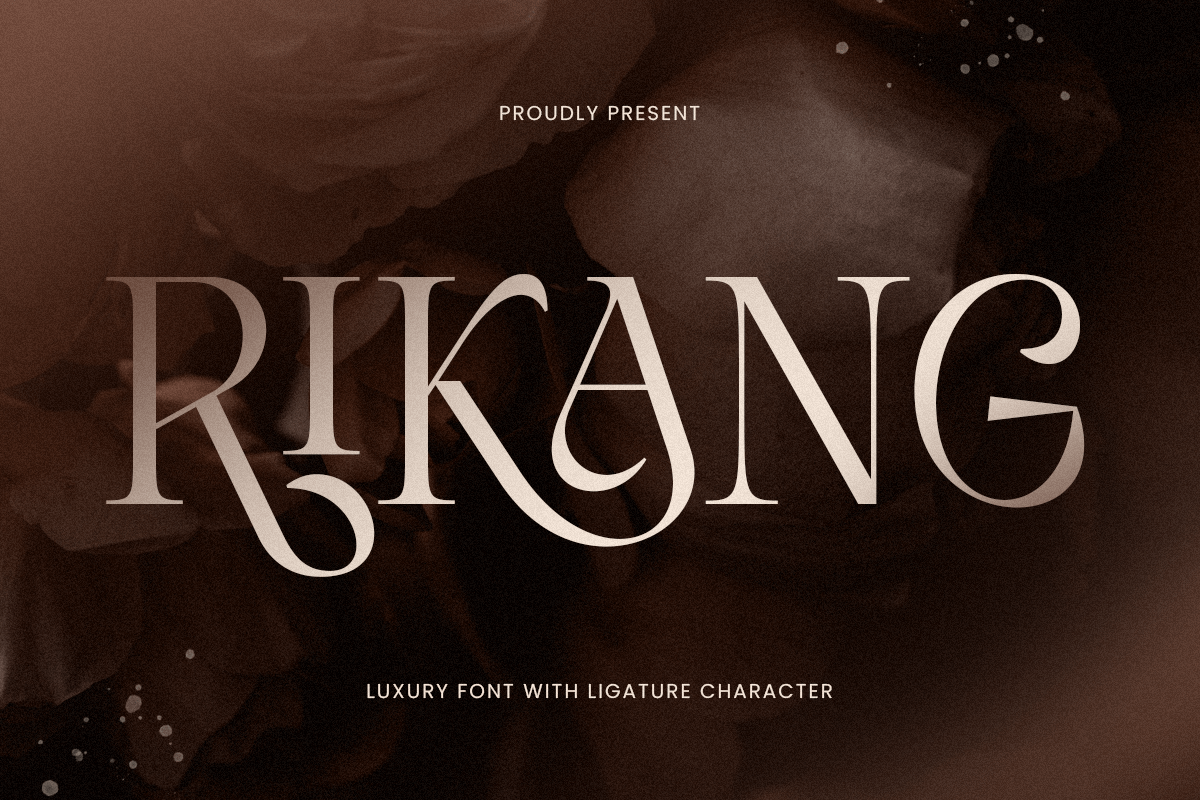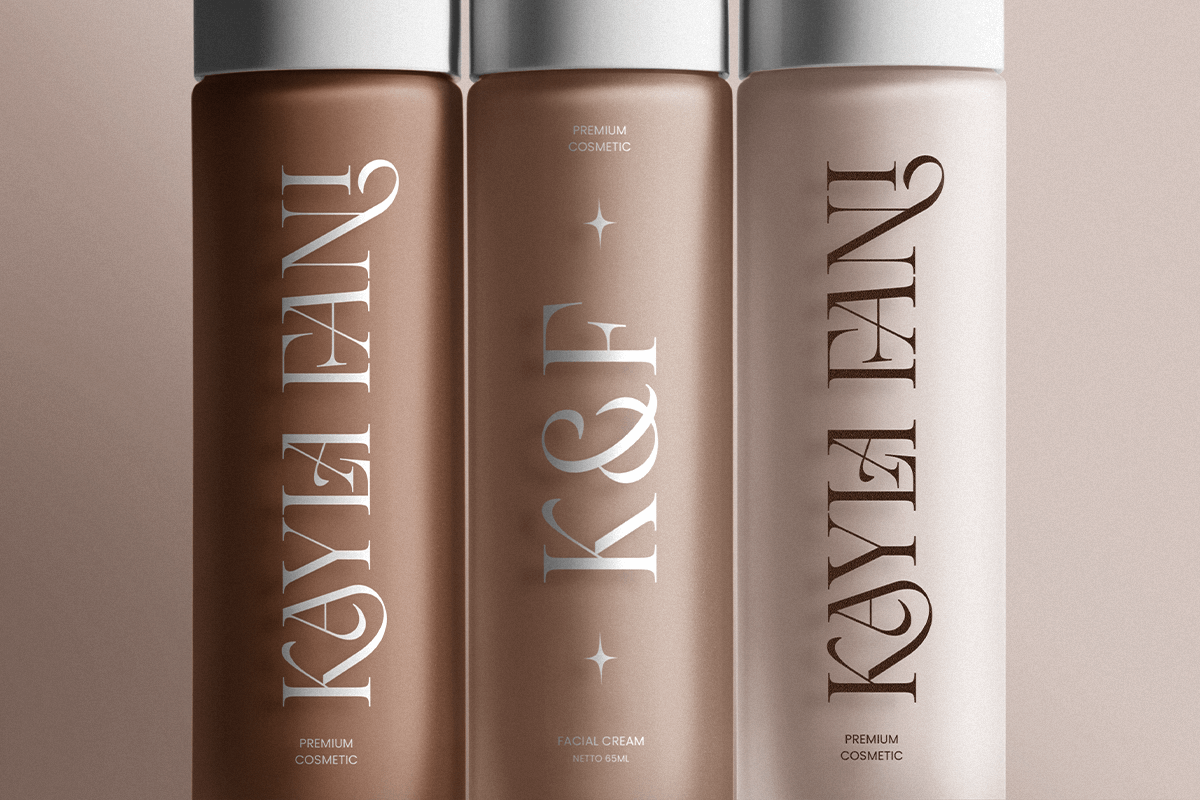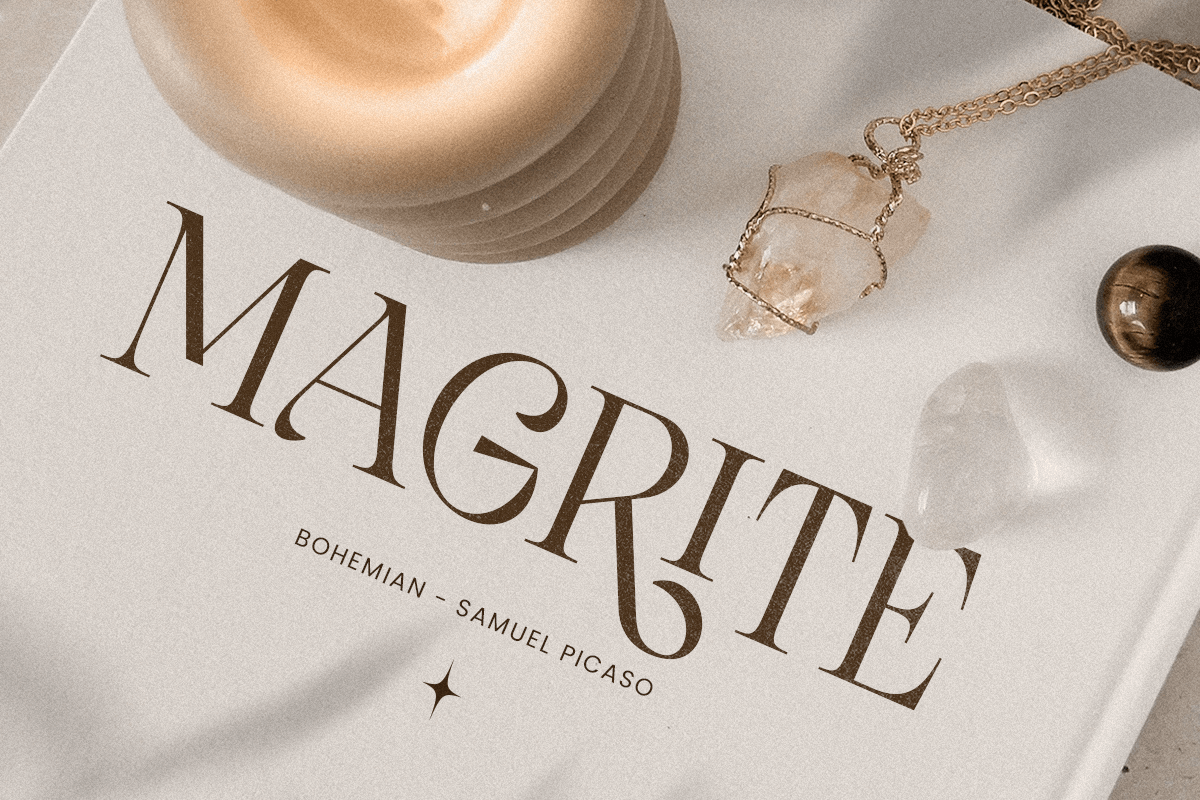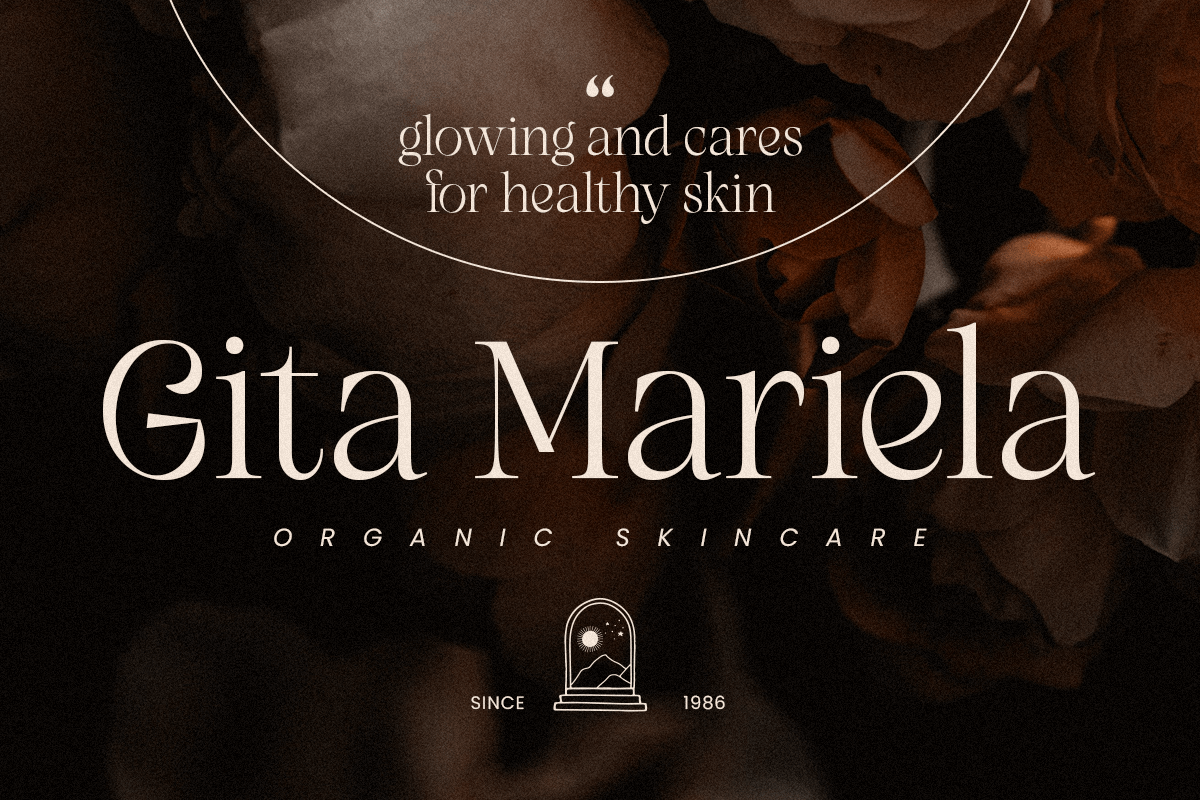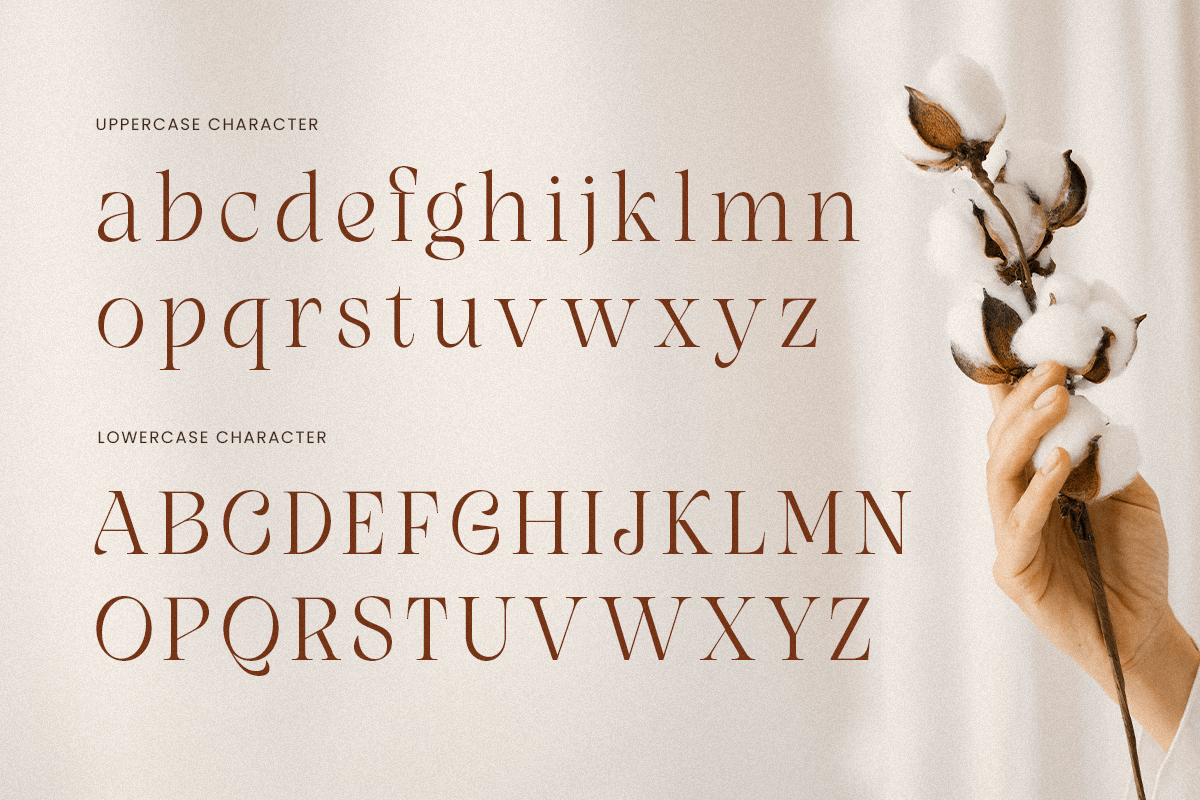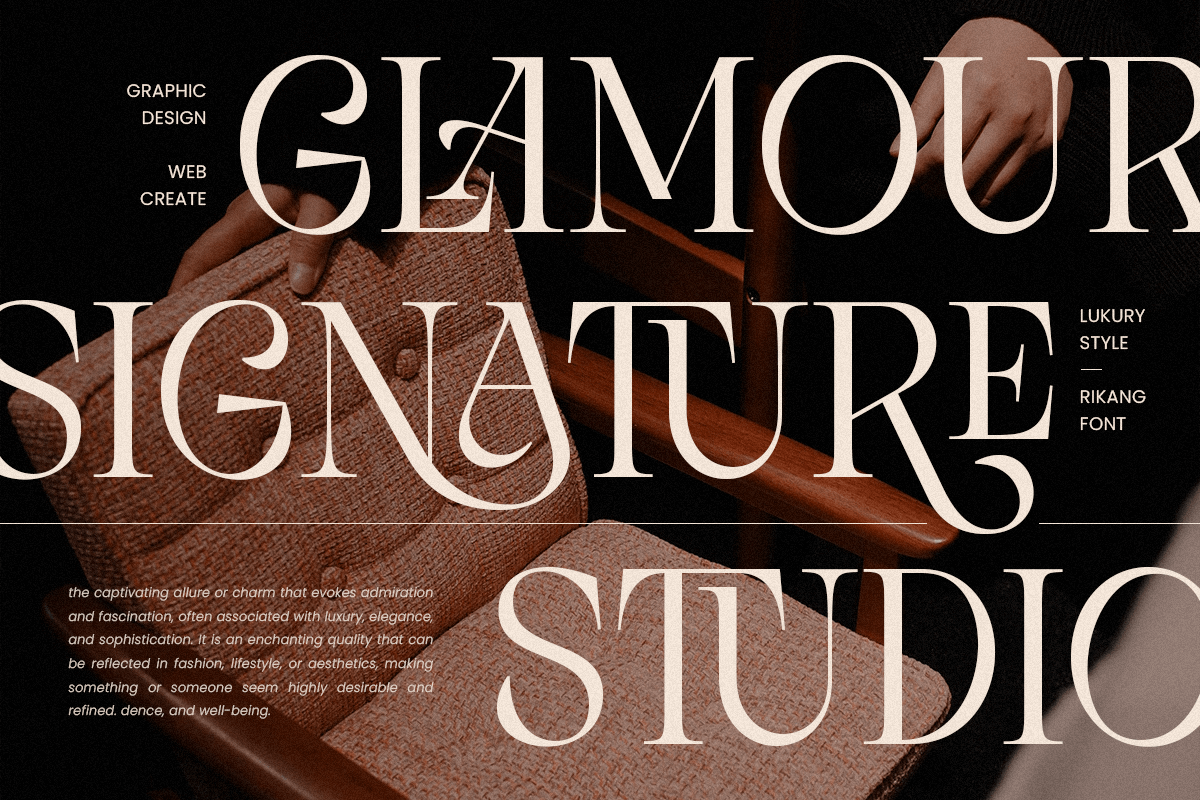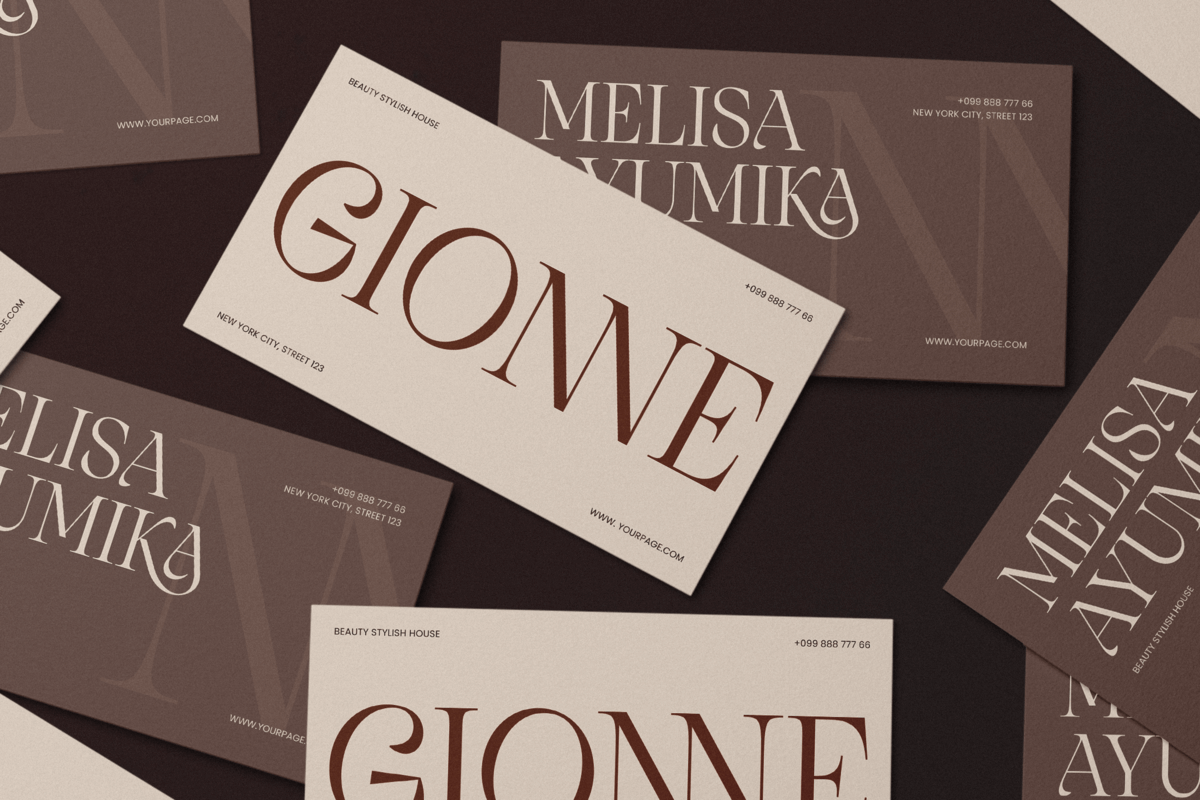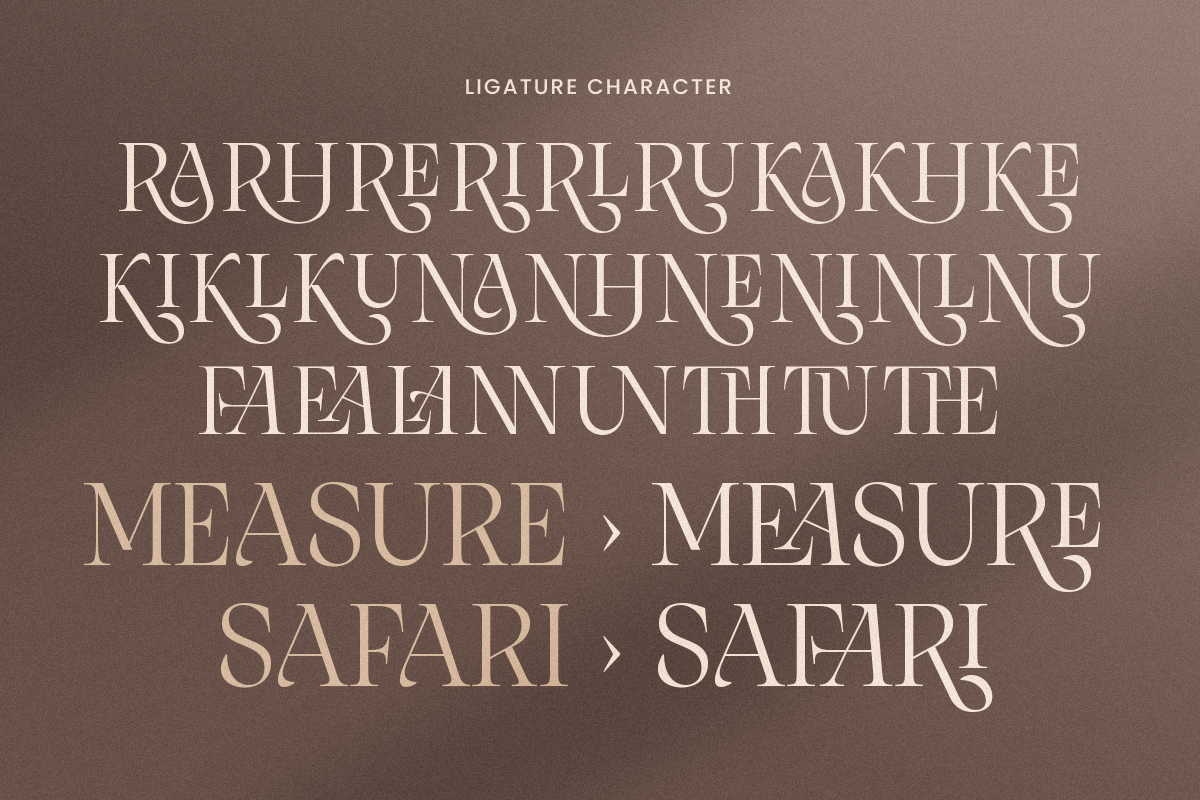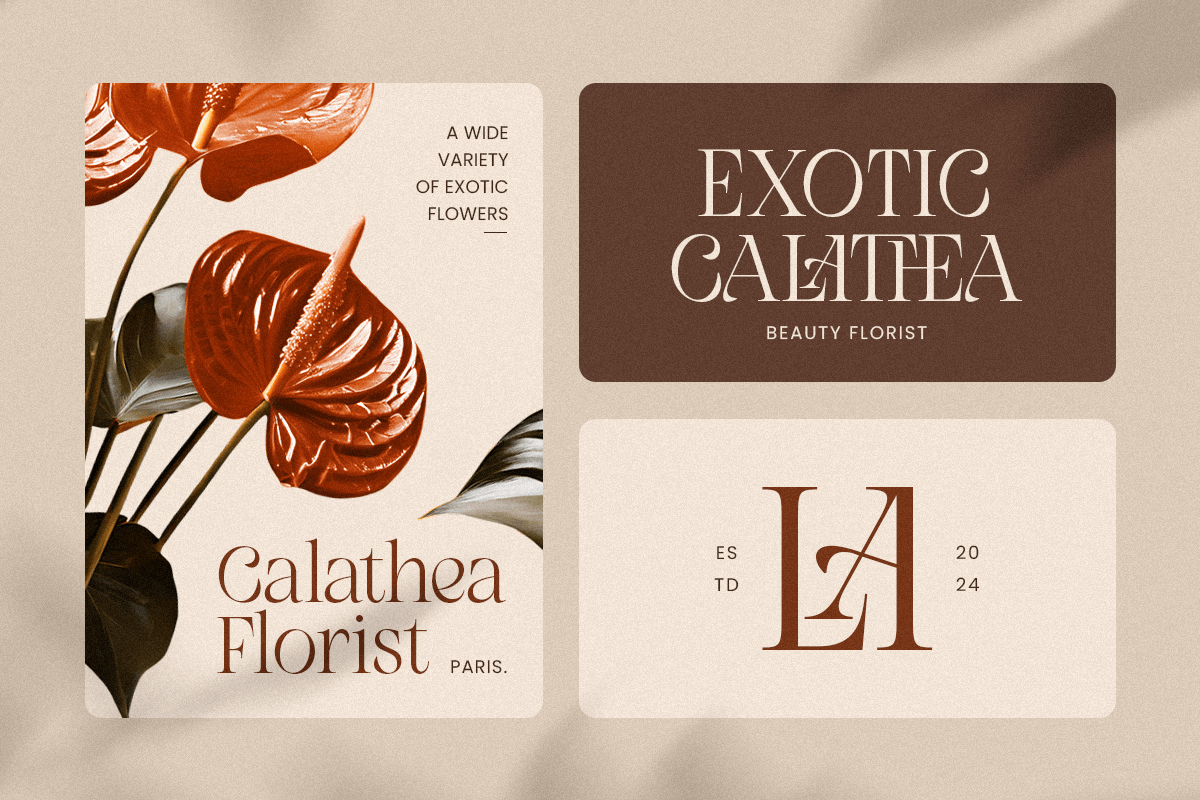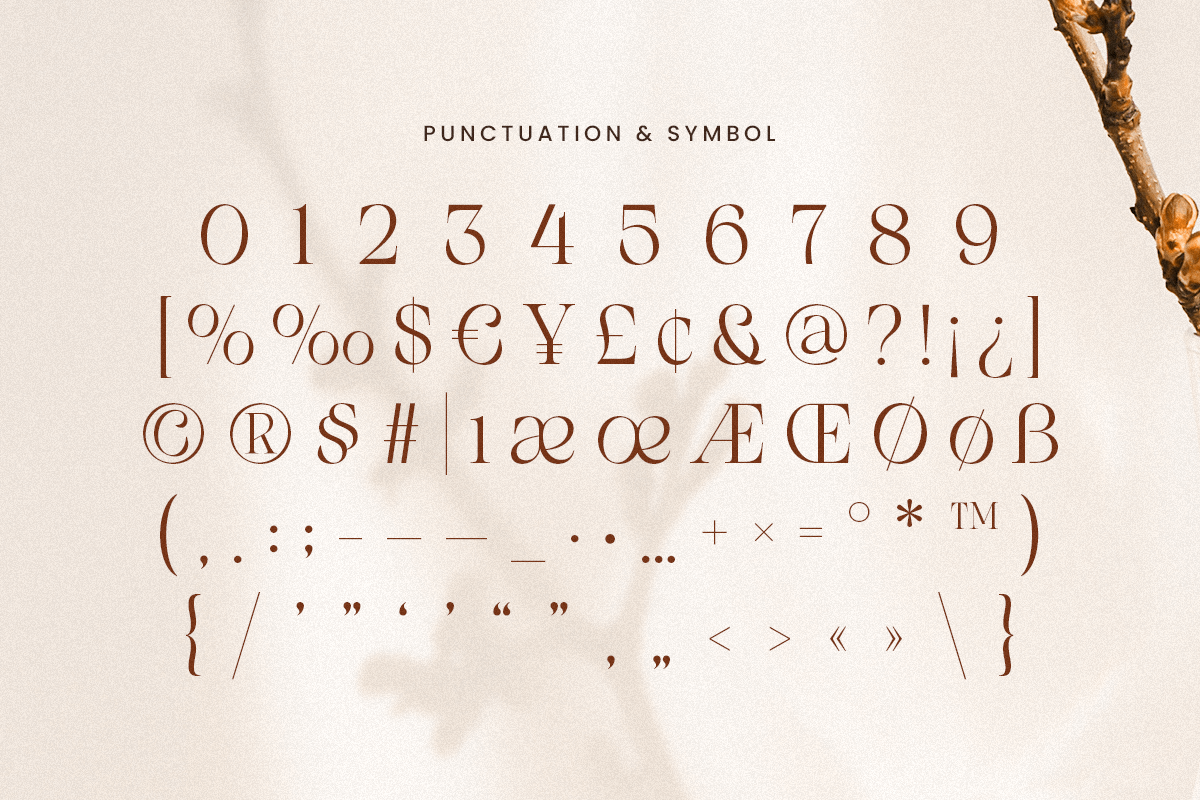
Rikang – Luxury Font
Crafted for Elegance
Rikang is a luxury font that embodies sophistication and refinement. Its graceful curves and elegant design make it the perfect choice for creating high-end visuals.
Perfect for Upscale Projects
From branding and editorial layouts to wedding invitations and luxury packaging, Rikang enhances the aesthetic of any project. Its timeless style is designed to captivate and inspire.
Sophistication in Every Detail
Rikang stands out with its attention to detail and premium feel. Ideal for designers who want to leave a lasting impression, it’s a must-have for any creative toolkit.
Rikang Luxury Font Features:
- Ligature Characters Ready